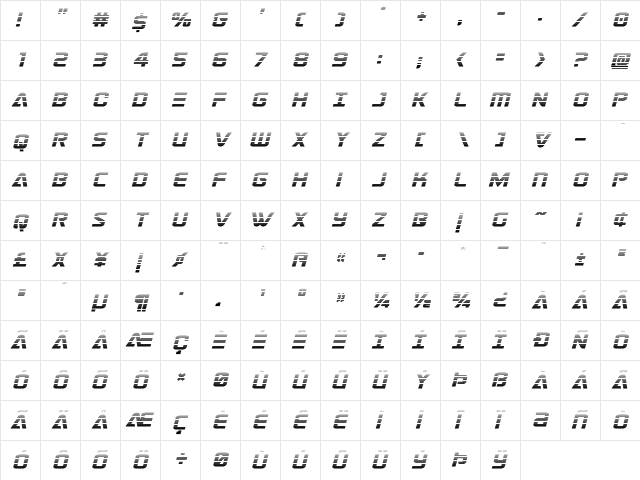
Astro Armada Gradient Italic Regular
Design Context for Astro Armada Gradient Italic Typeface
Astro Armada Gradient Italic is a composed and adaptable typeface that performs quietly and consistently across a wide range of design contexts. Its italic angle brings a sense of urgency and motion to the letterforms.
Pro Tip: Use Astro Armada Gradient Italic for emphasis, pull quotes, and subheadings where its slanted energy can add rhythm to the layout.